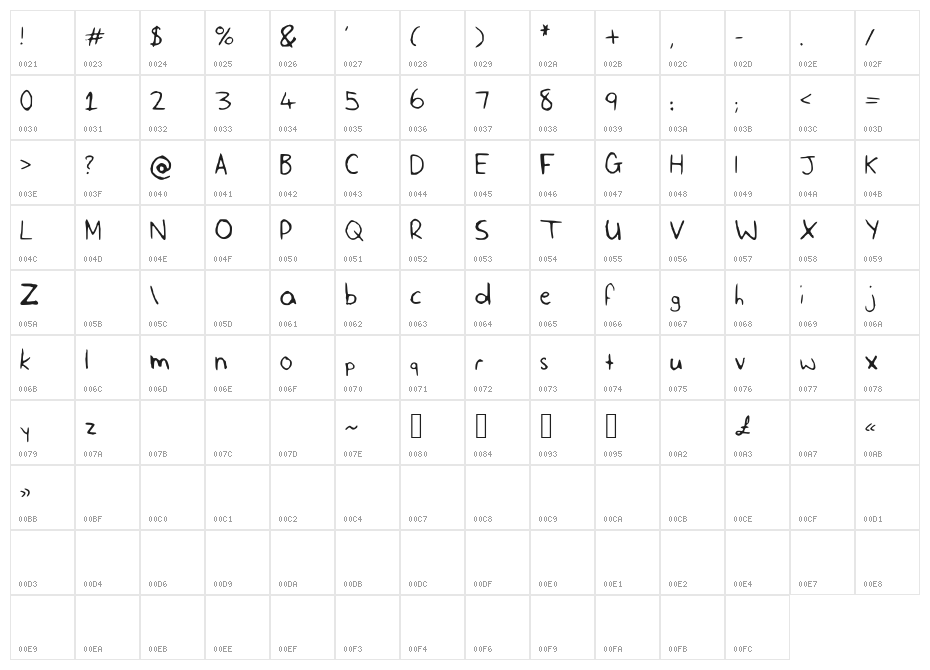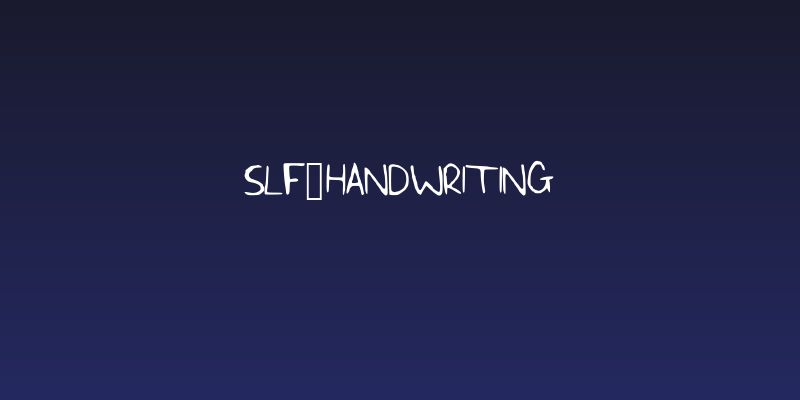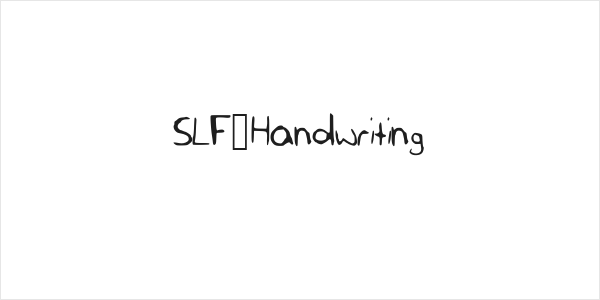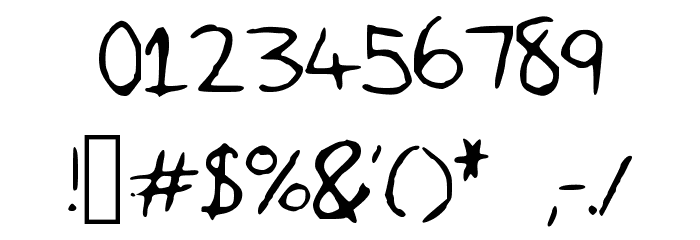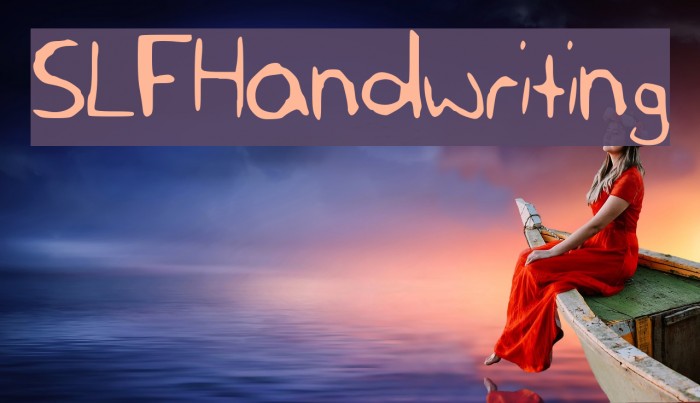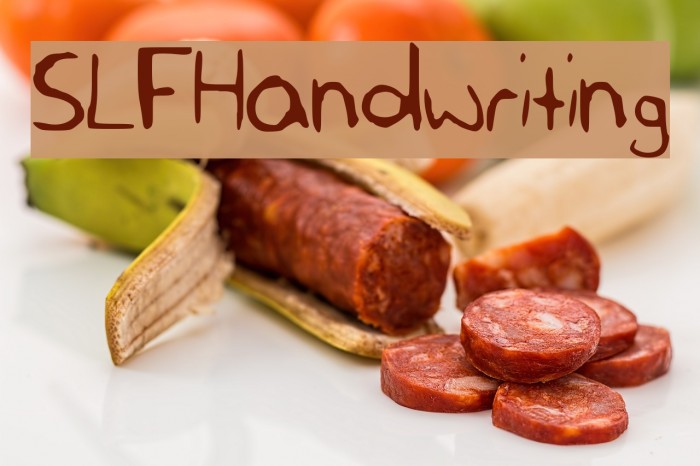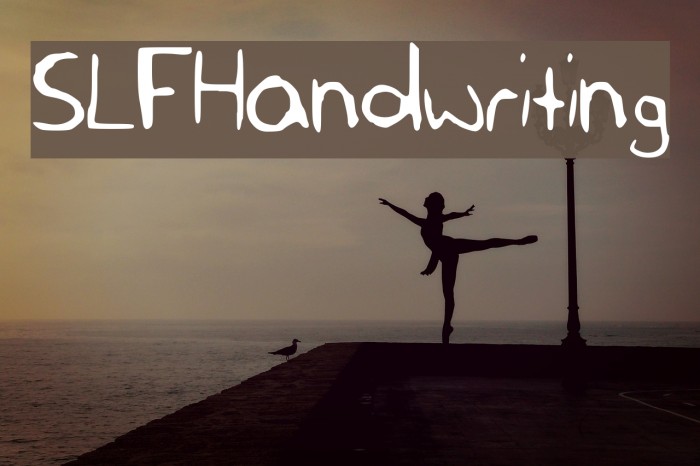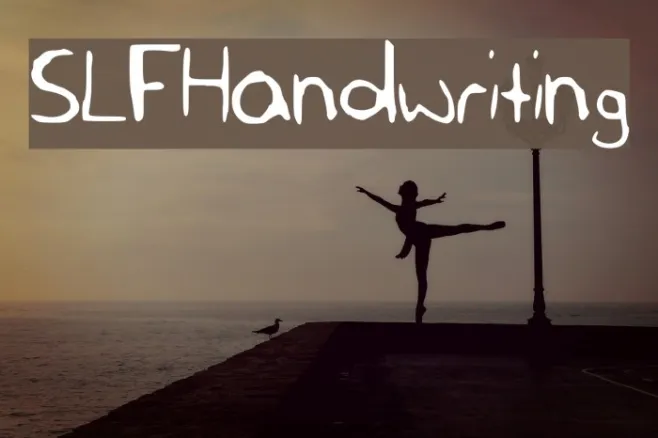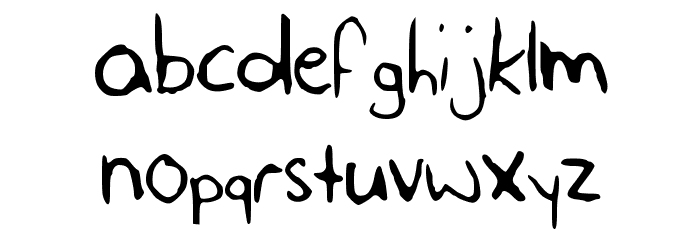
SLF_Handwriting Font
SLF_Handwriting Description
This font exudes a casual, handwritten style with a playful and informal appearance. The characters are slightly irregular, mimicking the natural flow of handwriting. Uppercase and lowercase letters maintain a consistent style, with rounded edges and varying stroke widths that add to the font's charm. The numerals and special characters follow the same aesthetic, ensuring uniformity across all glyphs. The font's organic feel makes it suitable for projects that require a personal touch or a relaxed vibe.
SLF_HANDWRITING UPPERCASE
SLF_HANDWRITING LOWERCASE
SLF_HANDWRITING OTHER CHARS